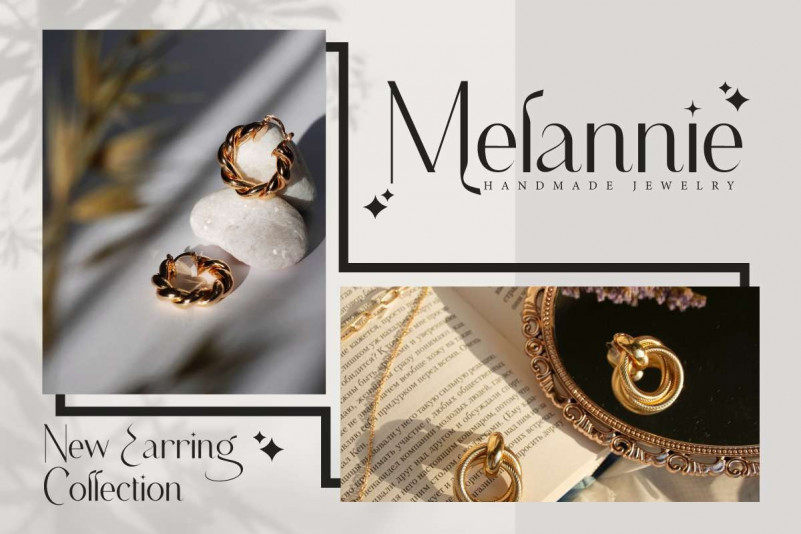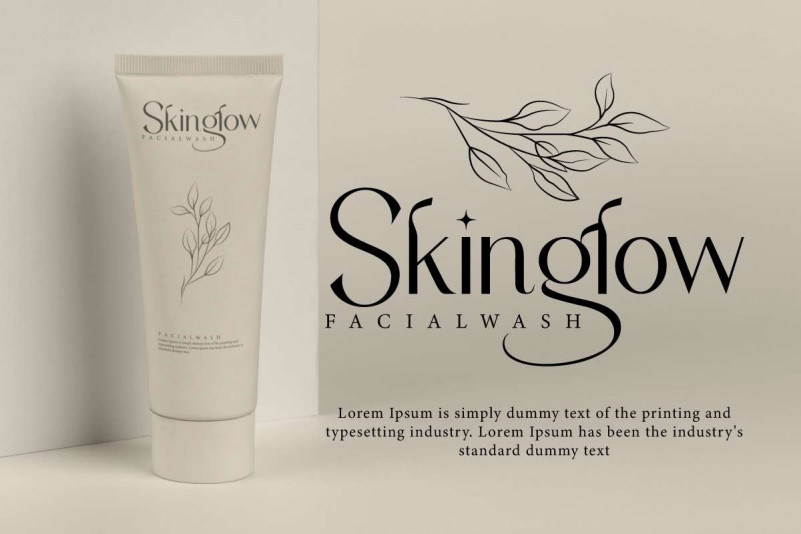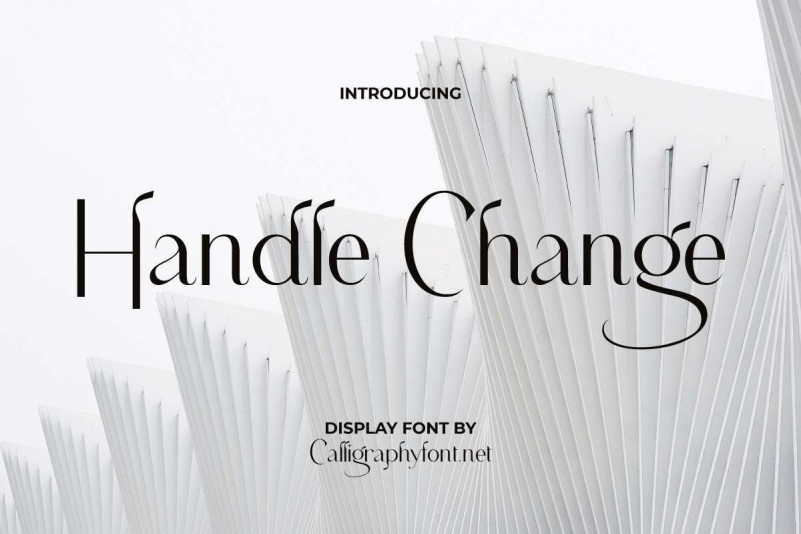
Handle Change Display Font
Handle Change Font is a stylish display font with unique look from CalligraphyFonts. This type has thin line and the upper indentation on some letters makes it different and stands out which is suitable for any creative project, such as: brand logo, headline, invitation, label, magazine, catalog, custom design, packaging design, print material, signage, stationery, website, etc.
Handle Change Font will be perfect for any industry, such as architect, fashion, café, cosmetic, florist, homeware, hotel, jewelry, photography, publishing, restaurant, salon, spa, wedding, writer, and anything that requires a modern look that exudes elegance.